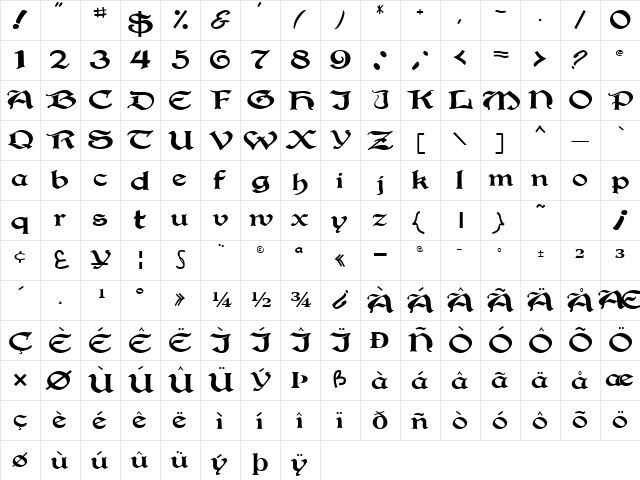
BucaneerSSK Regular Font Preview
BucaneerSSK Regular
Design Context for BucaneerSSK Typeface
BucaneerSSK is a composed and adaptable typeface that performs quietly and consistently across a wide range of design contexts.